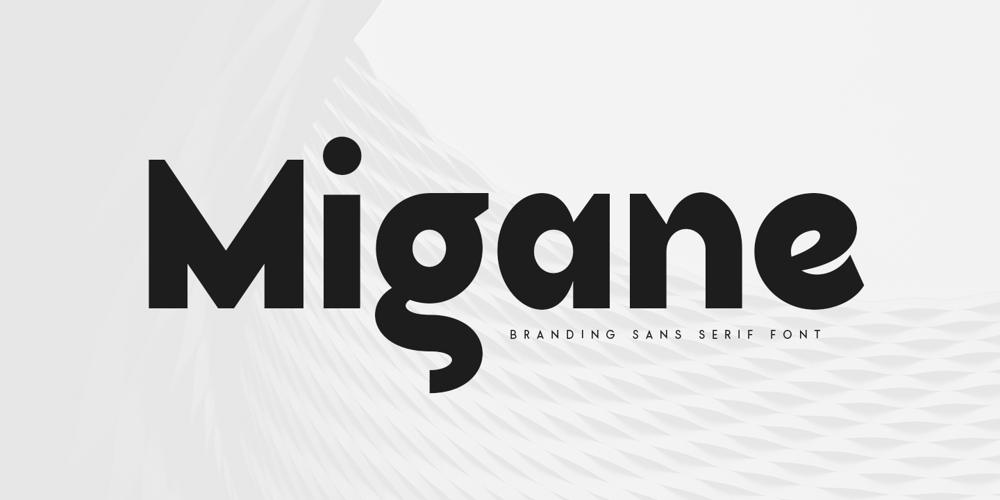
Migane Font Family was designed by Zamroni Hamzah and published by Sensatype Studio. Migane contains 1 styles and family package options. Migane is a Geometric sans serif font with modern, minimalist, elegant, unique and bold-look. This font crafted specials for Modern-themed projects, ready to use on Magazine, Social Media, Branding, Logo, and Many more that needs Modern touches.Migane is also included full set of: uppercase and lowercase letters multilingual characters numerals punctuation Wish you enjoy our font and if you have a question, don’t hesitate to drop message & I’m happy to help ๐